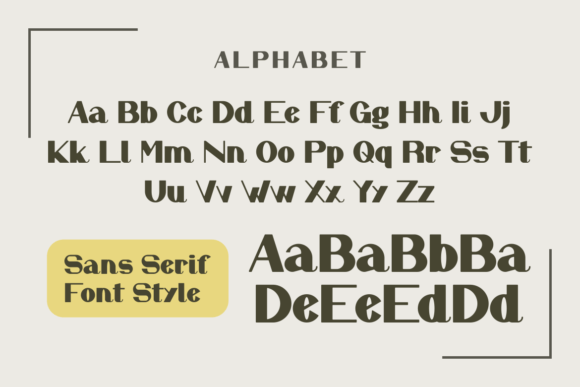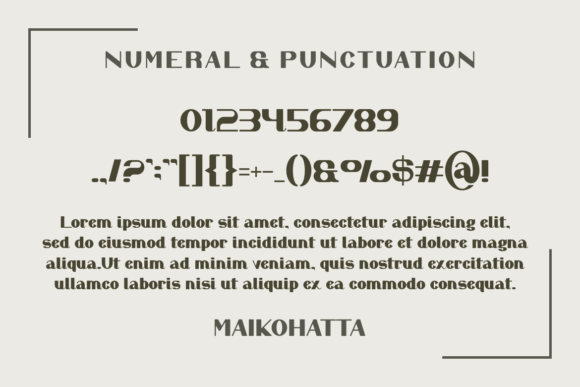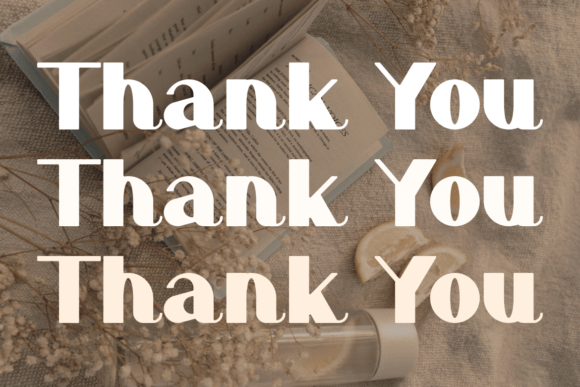
Have you ever been in the middle of a design project, staring at a blank canvas, searching for the perfect font to bring your idea to life? It’s a feeling we’re all too familiar with, but what if I told you that the perfect font is just around the corner? Enter Analisa Font, a modern font that exudes boldness and authenticity, making it the ideal choice for any branding project.
Analisa Font is more than just a font – it’s a versatile tool that can be used in a wide range of contexts, from logo designs to t-shirt printing, and even esports branding. Its unique character makes it stand out in any setting, making it a valuable addition to any designer’s toolkit. Whether you’re a seasoned pro or just starting out, Analisa Font is sure to elevate your designs to the next level.
Analisa Font Key Features
- Font Family: Analisa Font is a sans-serif typeface designed for digital use. It comes in a range of weights from light to bold.
- Character Set: The font includes a comprehensive character set that supports multiple languages, including Latin, Cyrillic, and Greek scripts.
- Size: Analisa Font is available in 6 weights, ranging from 100 to 900, with corresponding italic and oblique styles.
- Resolution: The font is optimized for high-resolution displays, making it suitable for use in digital media such as websites, apps, and e-books.
- Unique Characteristics: Analisa Font features a clean and modern design with a distinctive x-height, making it highly legible in small sizes and on various devices.
Designer Review: Analisa Font
Overall, I was quite excited to dive into Analisa Font, but my experience was a mixed bag. Here’s a breakdown of what works well and what doesn’t.
- Unique & Elegant Design: The Analisa Font has a distinct, modern look that could work well for upscale brands or those in the fashion industry.
- Wide Character Set: The font includes a comprehensive set of characters, including Cyrillic, Greek, and Vietnamese alphabets.
- High-Quality Renditions: The font is available in several weights, ranging from Light to Bold, and all of them look crisp and well-made.
- Limited Kerning: Some letter combinations look a bit off, with uneven spacing that can affect readability.
- No Clear Distinctions Between Weights: The weights of the font, while numerous, don’t have distinct enough variations to justify their existence.
- Not Ideal for Small Text: Due to its elegant, flowing design, the Analisa Font can become difficult to read at small font sizes.
In conclusion, while the Analisa Font has its strengths, it falls short in a few key areas. With some adjustments to kerning and weight differentiation, it could be a top contender in the font market. As it stands, I would recommend it to designers looking for a unique, high-end feel, but with some caution regarding its limitations.
Analisa Font is perfect for:
- Designing creative and modern graphics.
- Creating professional-looking presentations and documents.
- Adding a touch of elegance to digital products and marketing materials
Alternatives to Analisa Font for Designers
Playfair Display is a luxurious and elegant script font. It’s ideal for creating a sophisticated and high-end feel in branding, advertising, and editorial designs.
Playfair Display compares to Analisa Font in its high-end feel, but it’s more elegant and luxurious. While Analisa Font is more modern and sleek, Playfair Display has a classic, vintage touch.
Pacifico is a beautiful and elegant script font with a relaxed, beachy feel. It’s perfect for creating a laid-back and casual atmosphere in designs such as travel brochures, restaurant menus, and packaging.
Pacifico is more casual and relaxed compared to Analisa Font, which is more modern and sleek. While Analisa Font is ideal for tech and corporate designs, Pacifico is better suited for creative and leisure-related industries.